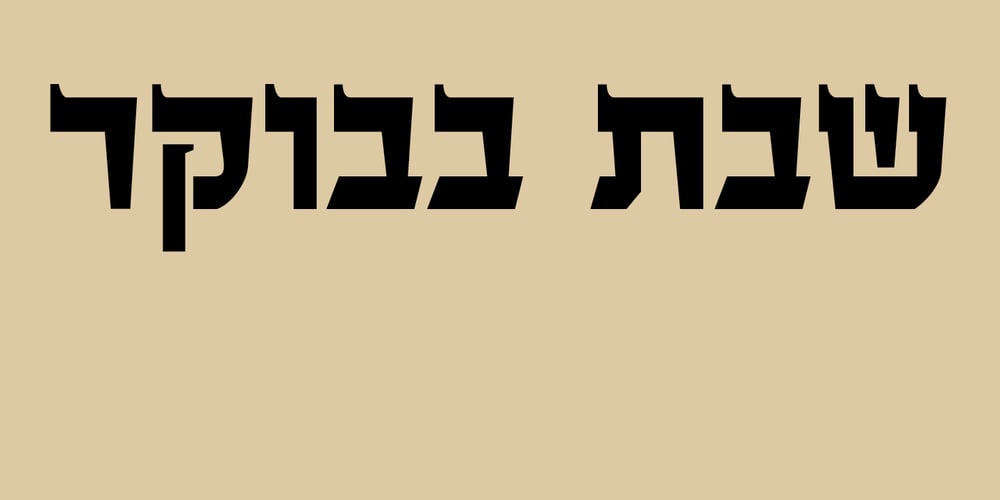
Gatkes MF Font Family was designed by Eliyahu Fried and published by Masterfont. Gatkes MF contains 1 styles and family package options. Inspired by old old tombstones, this font is unique by its flow and contrast, enabling traditional typeface gain a new and clear flow and rhythm.